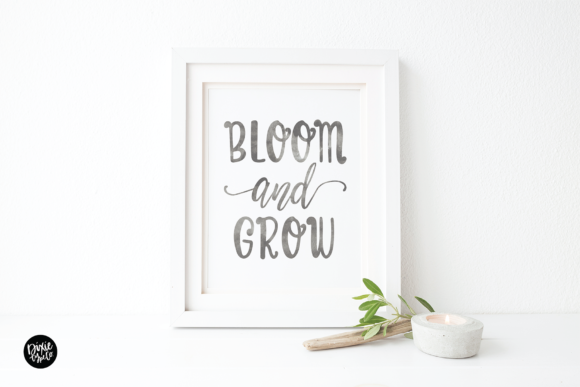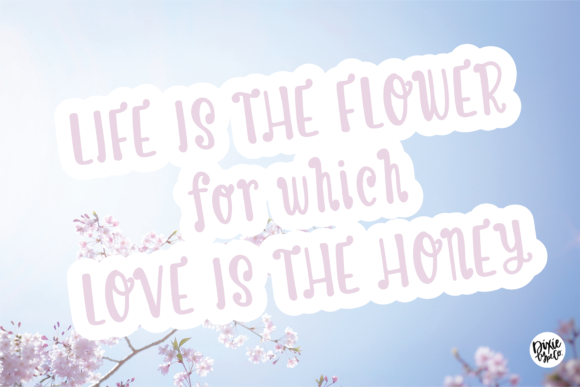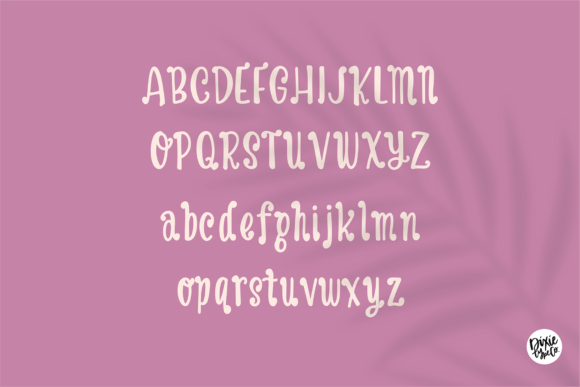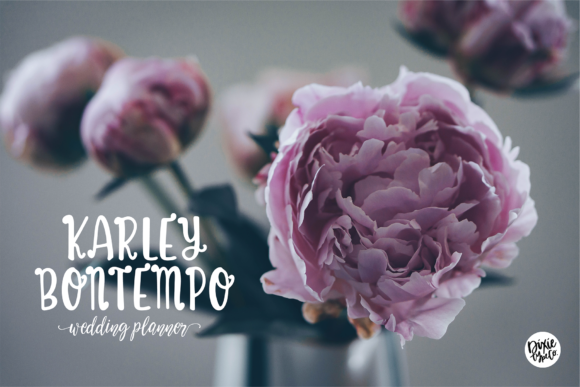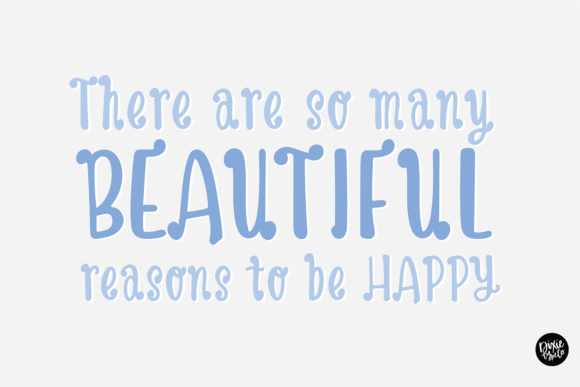
Introduction to Pretty Peony Font Font
Fonts play a crucial role in design, and the Pretty Peony Font font is a typeface that brings both character and versatility to any project. Whether you’re working on a branding project, a website, or a print design, the Pretty Peony Font font offers a unique style that can elevate your work.
Pretty Peony is a cute, whimsical and charming display font.
It is defined by smooth curves and is perfect for fashion branding or editorial designs This dazzling display font will turn any creative idea into a standout.
Key Features of Pretty Peony Font Font
Why Choose Pretty Peony Font Font?
The Pretty Peony Font font is more than just a typeface – it’s a design tool that helps you communicate your message with style and clarity. Its unique character set and versatile design make it suitable for a wide range of applications, from elegant invitations to bold headlines.
With its carefully crafted letterforms and balanced proportions, the Pretty Peony Font font ensures readability and visual appeal across all mediums.
What makes Pretty Peony Font font special?
The Pretty Peony Font font stands out with its unique design, exceptional readability, and versatility across various design applications.